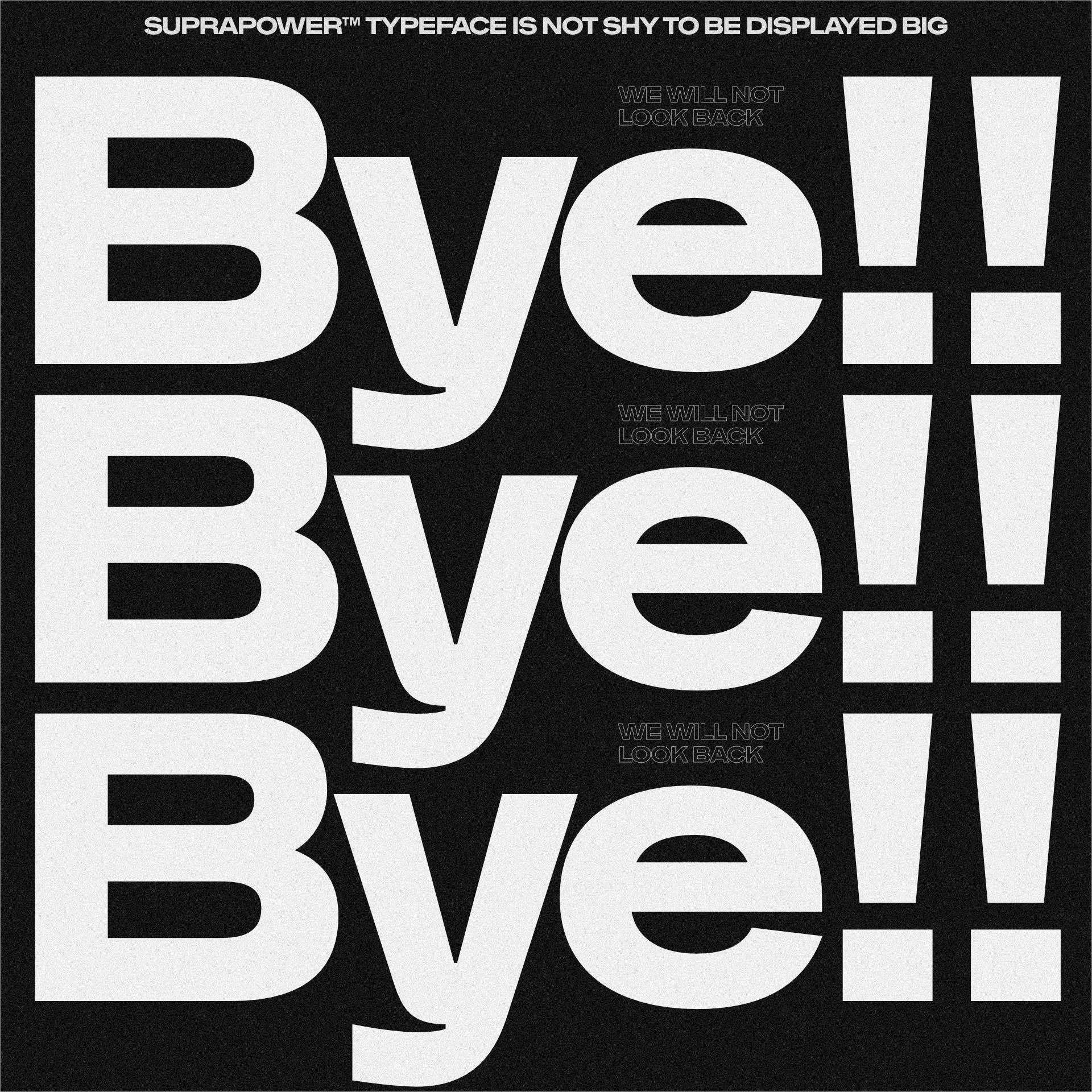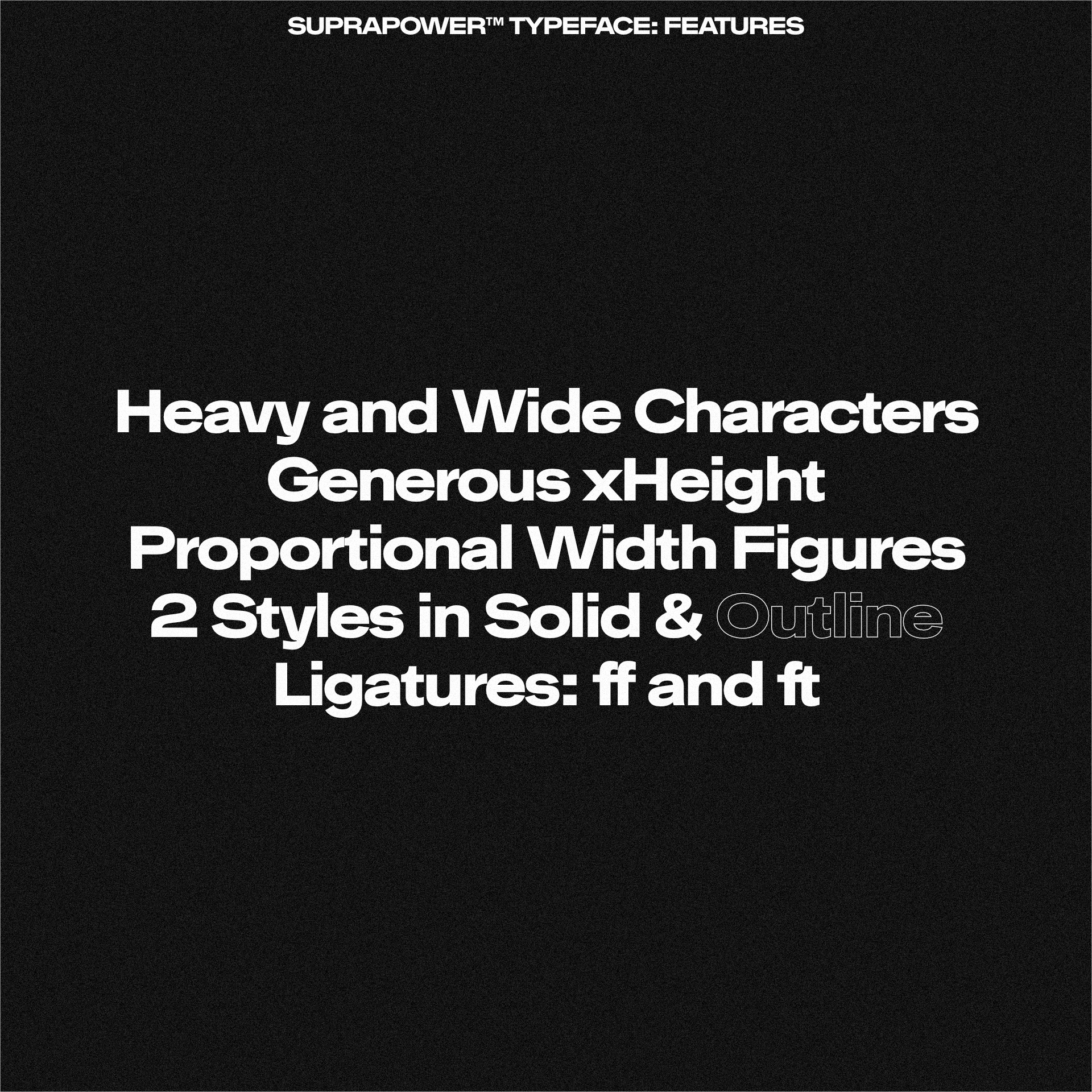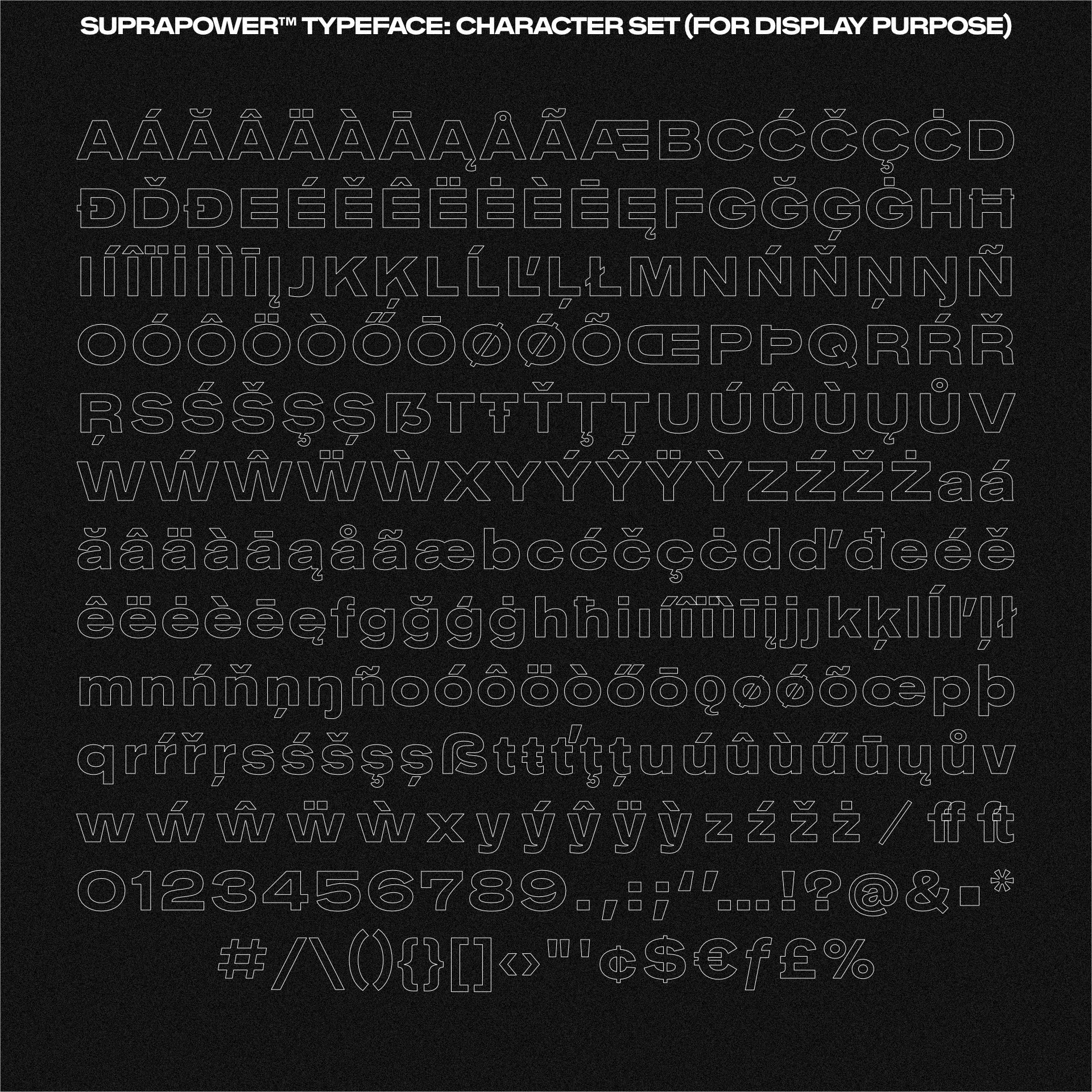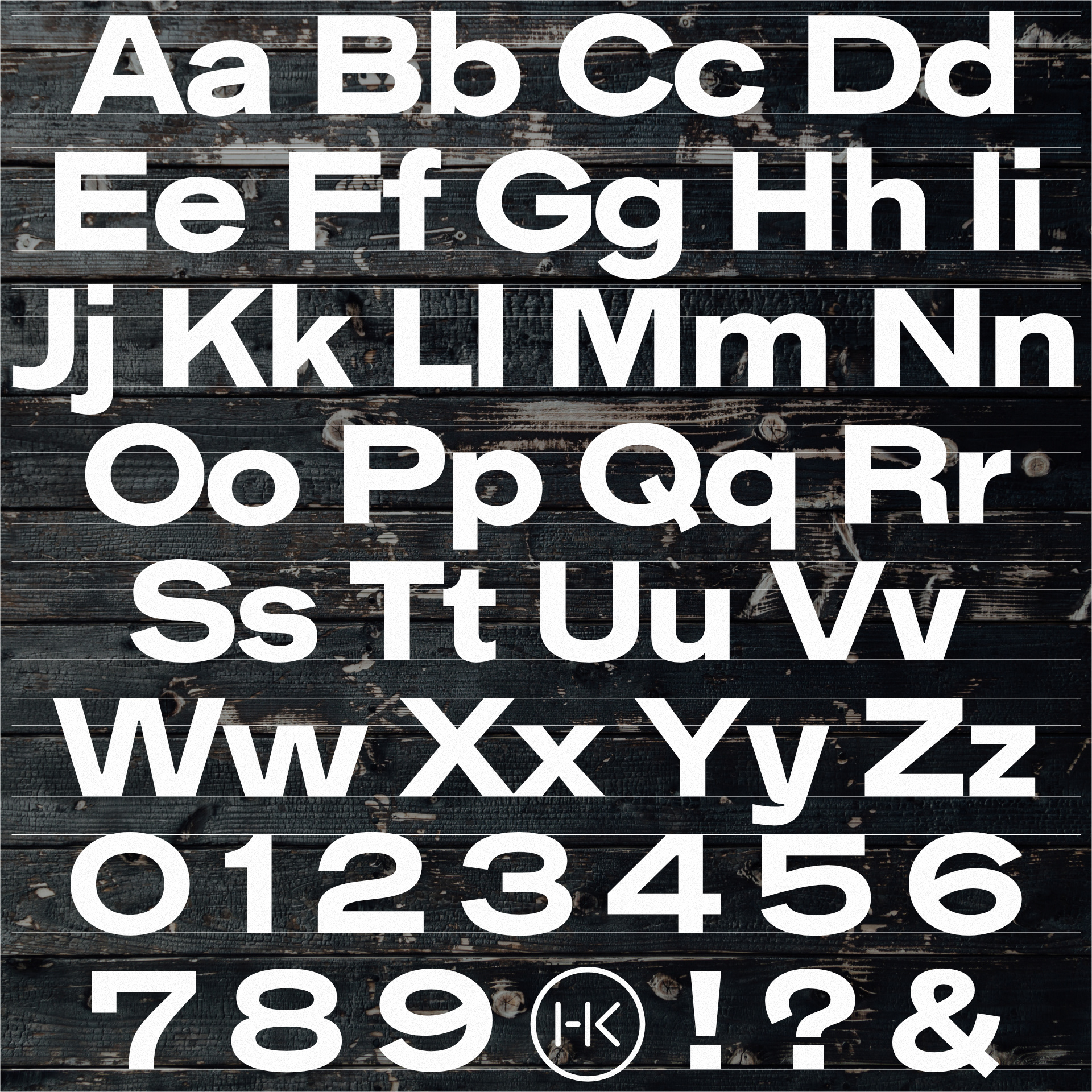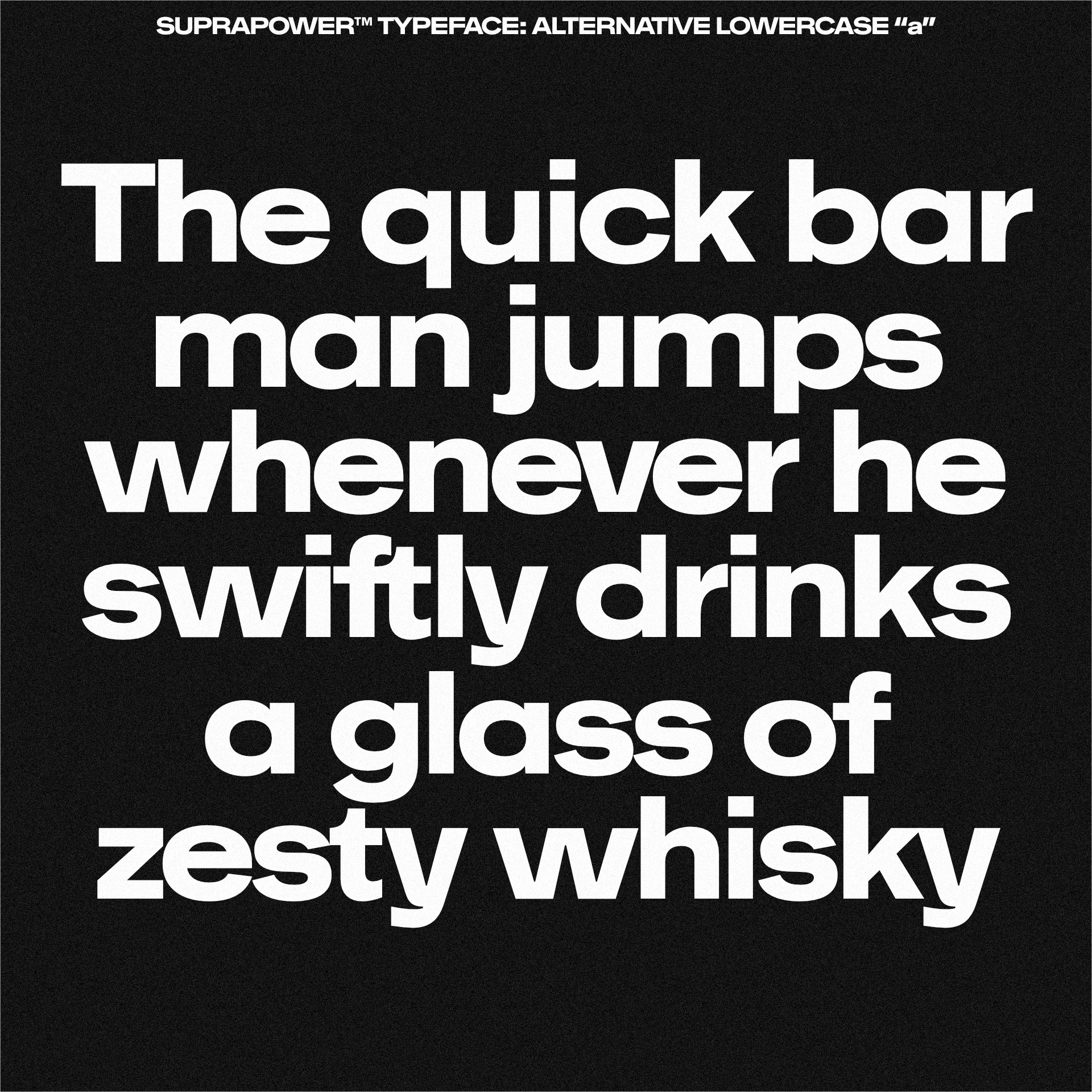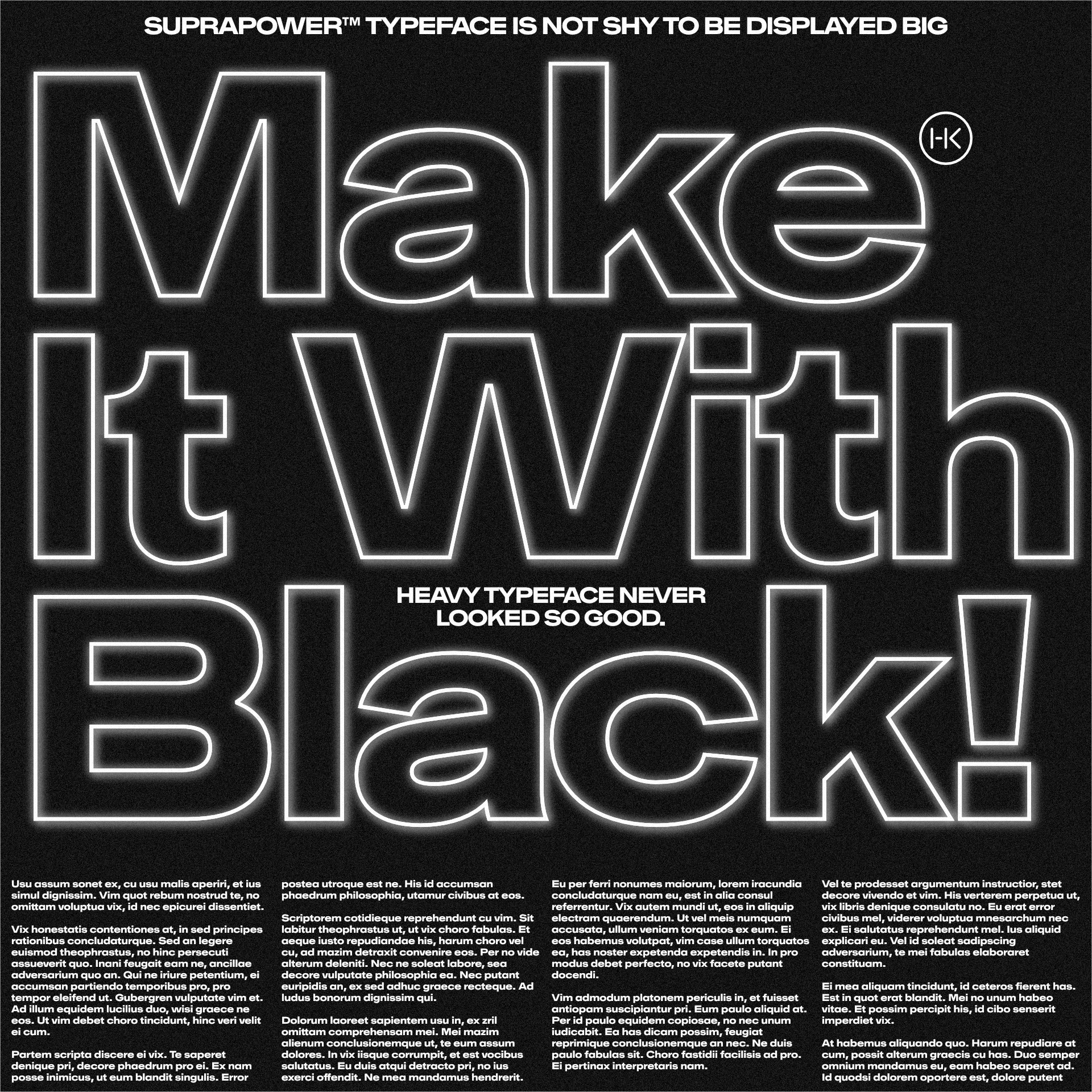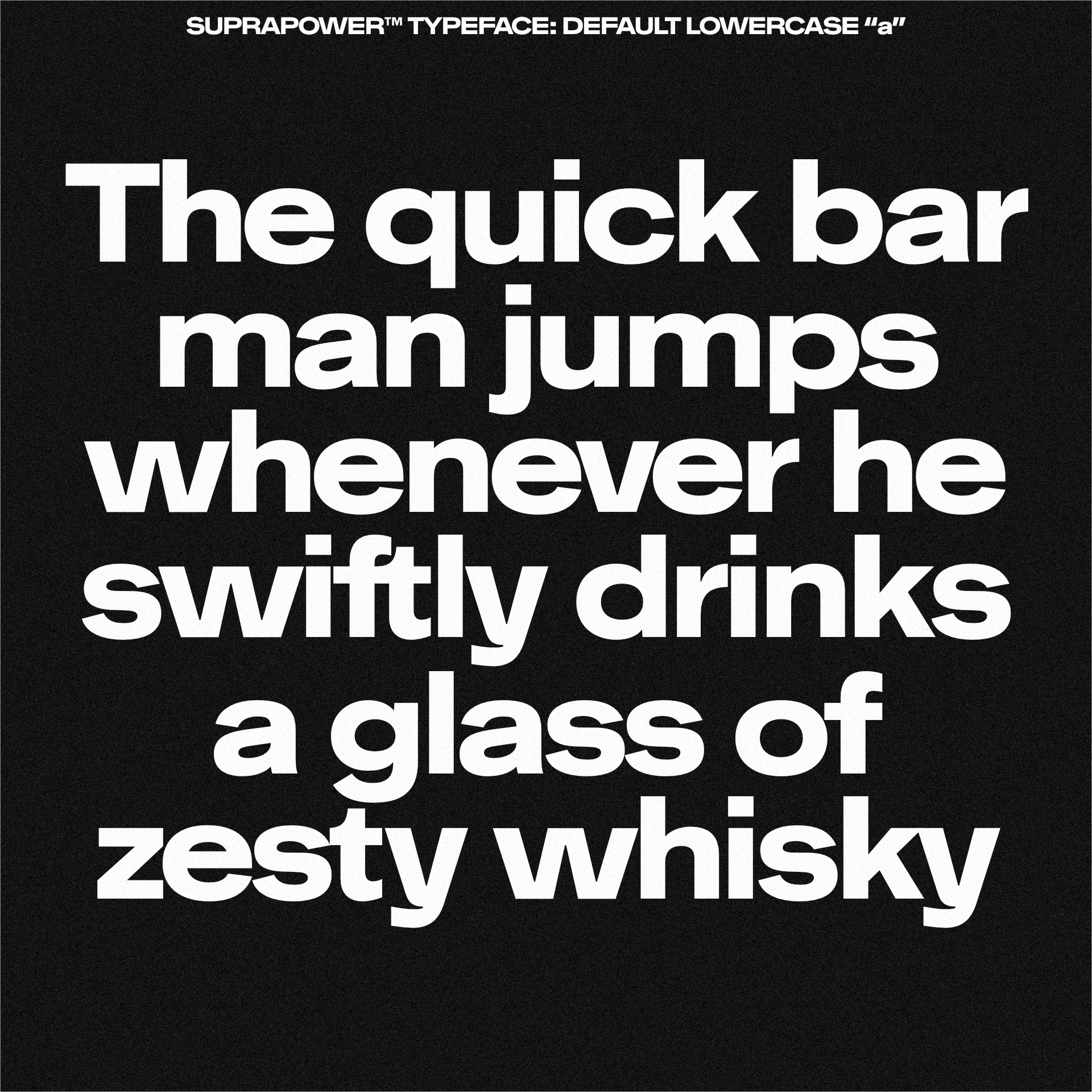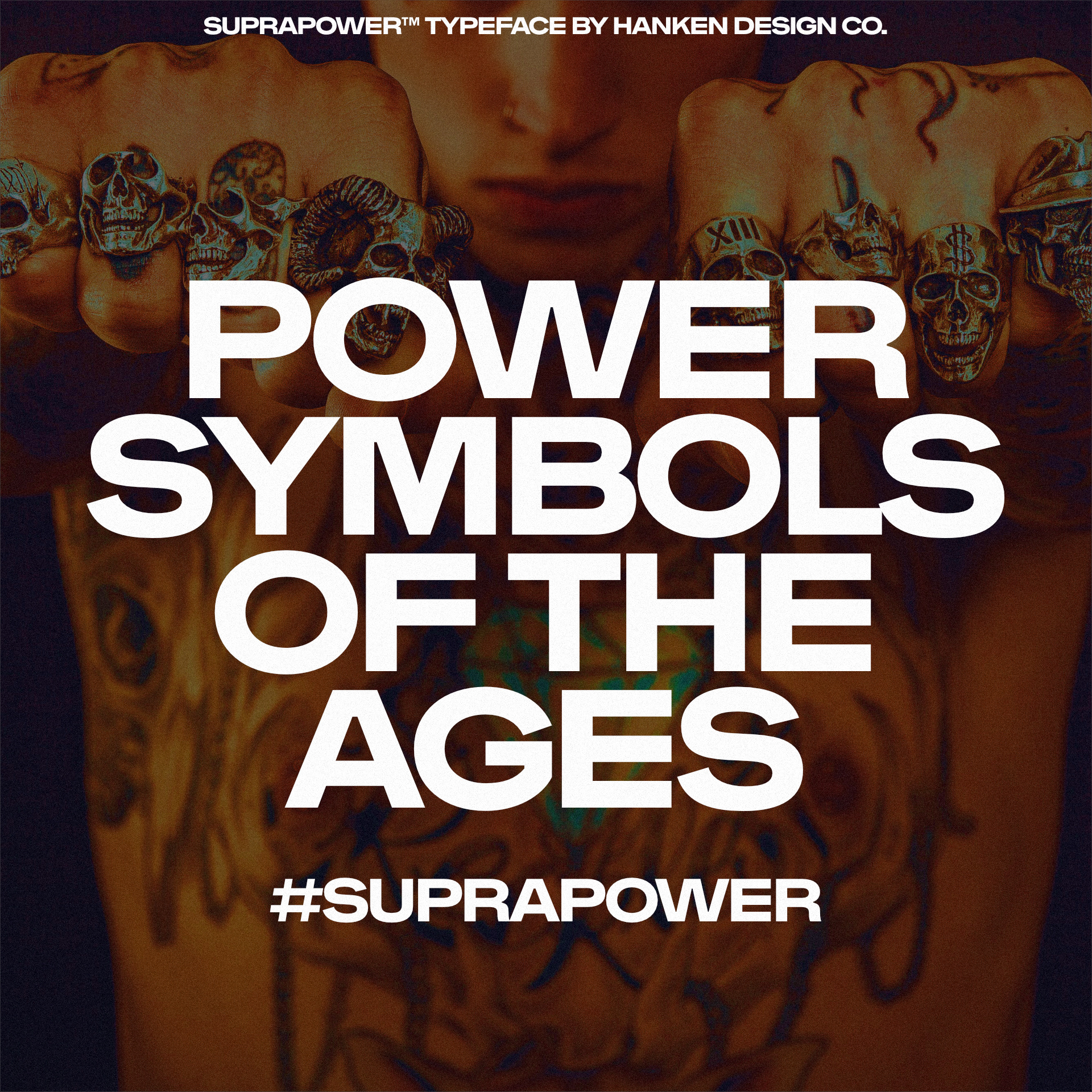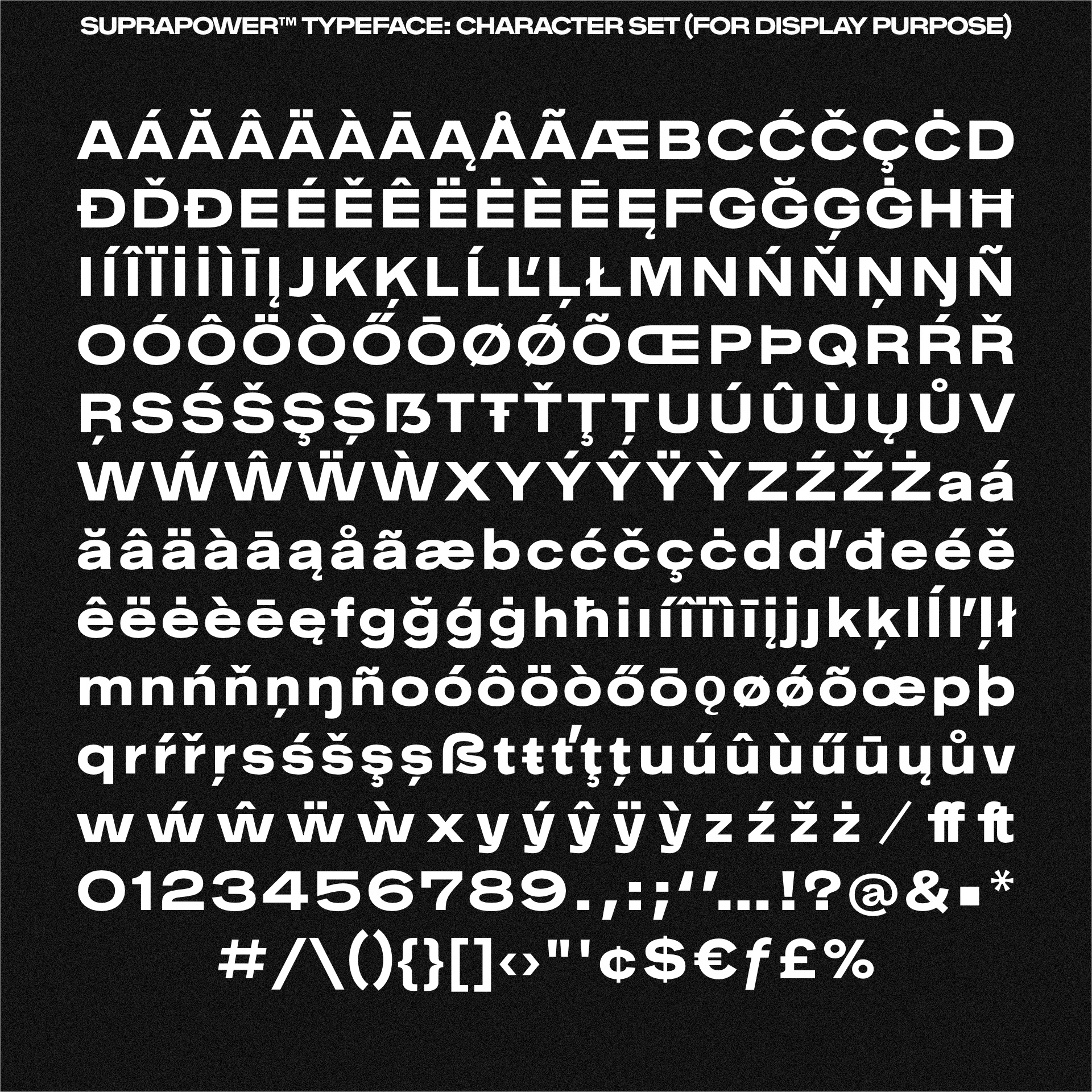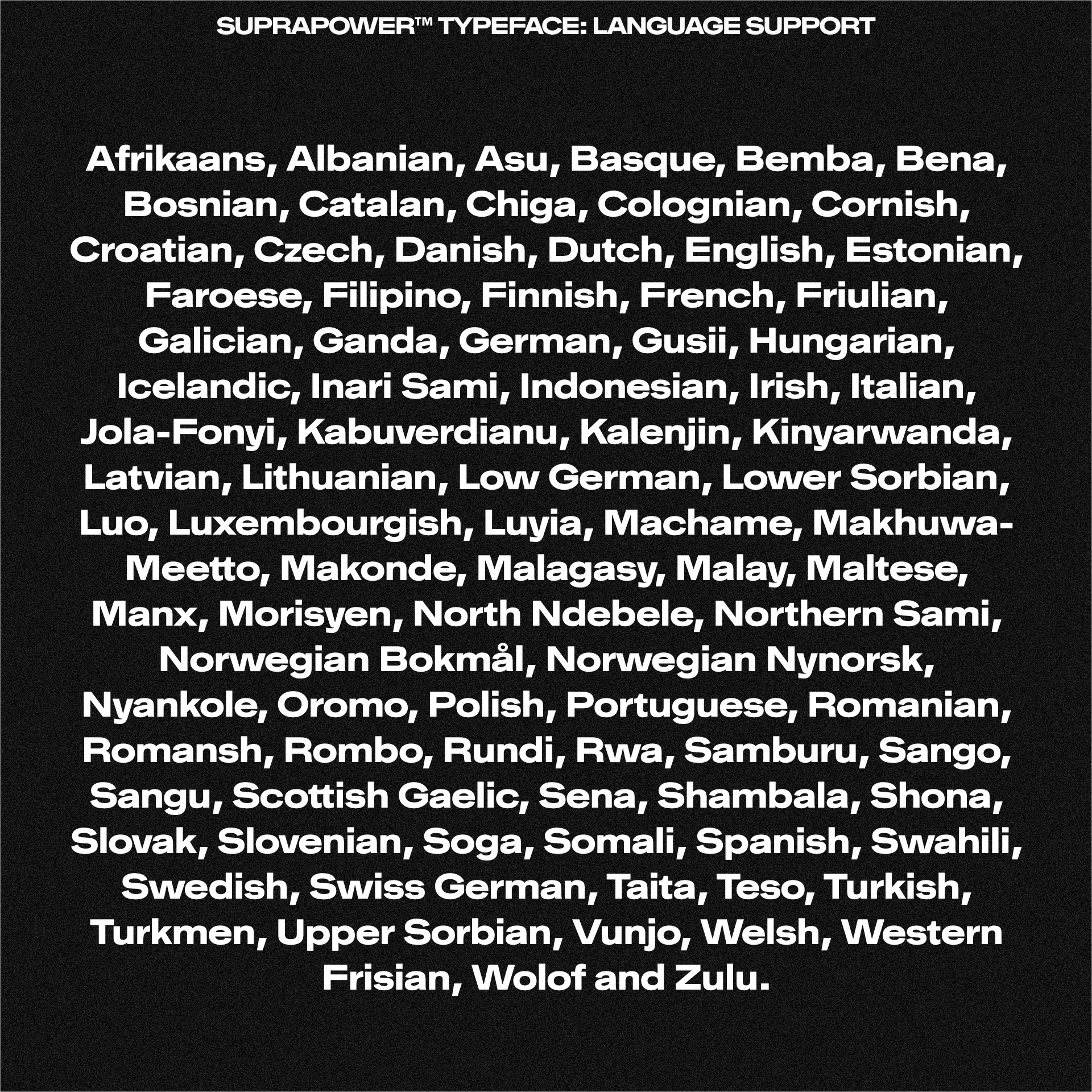
Suprapower™ is a wide typeface for poster, packaging, headline and titles. It has only two styles: heavy wide solid and heavy wide outline.
Styles: 2 — Heavy Solid / Heavy Outline